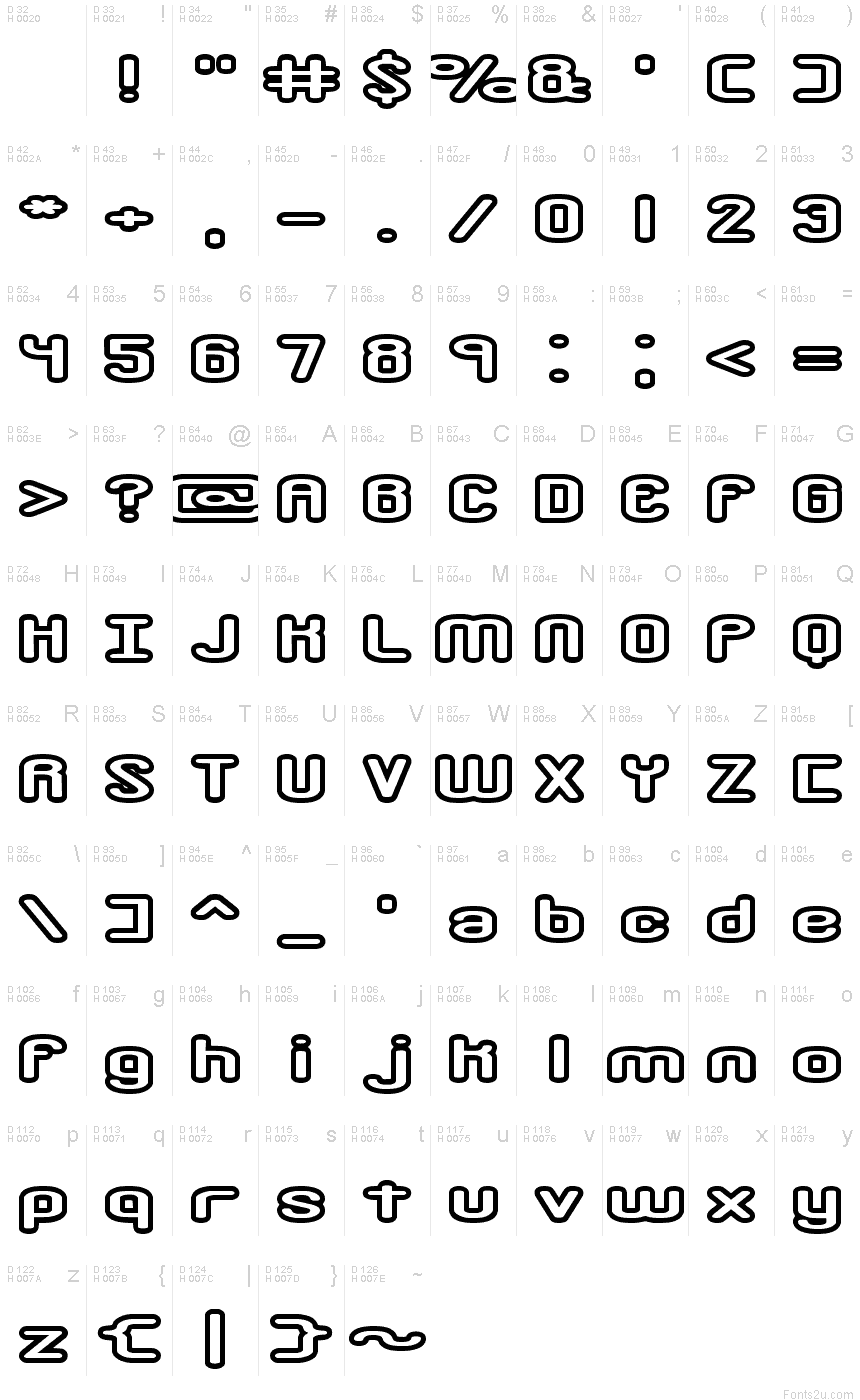
Crackdown O2 -BRK-
Crackdown O2 -BRK- font by ÆNIGMA FONTS wraps each letter in a bold, tubular outline that feels both futuristic and playful. The hollow interiors and rounded corners give it a soft, inflated look, making this free font stand out instantly wherever it appears. It works especially well when set large, where the smooth curves and inner contours can really breathe.
Crackdown O2 -BRK- is ideal for game titles, sci-fi posters, tech event flyers, album art, and eye-catching YouTube or streaming graphics. This free font brings a chunky, gadget-like energy that suits youth brands and experimental interfaces. Try pairing it with a simple, neutral sans serif for body text, and keep generous spacing around headlines so the bold outlines don’t feel cramped.